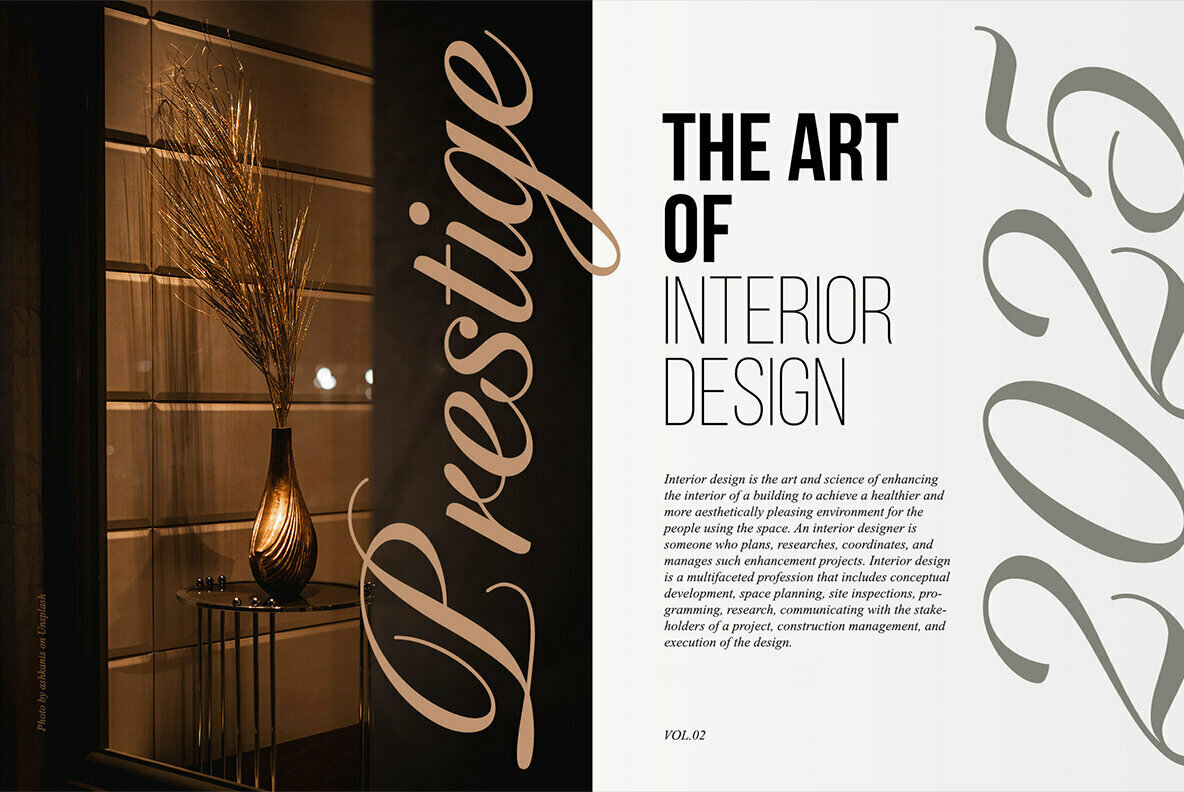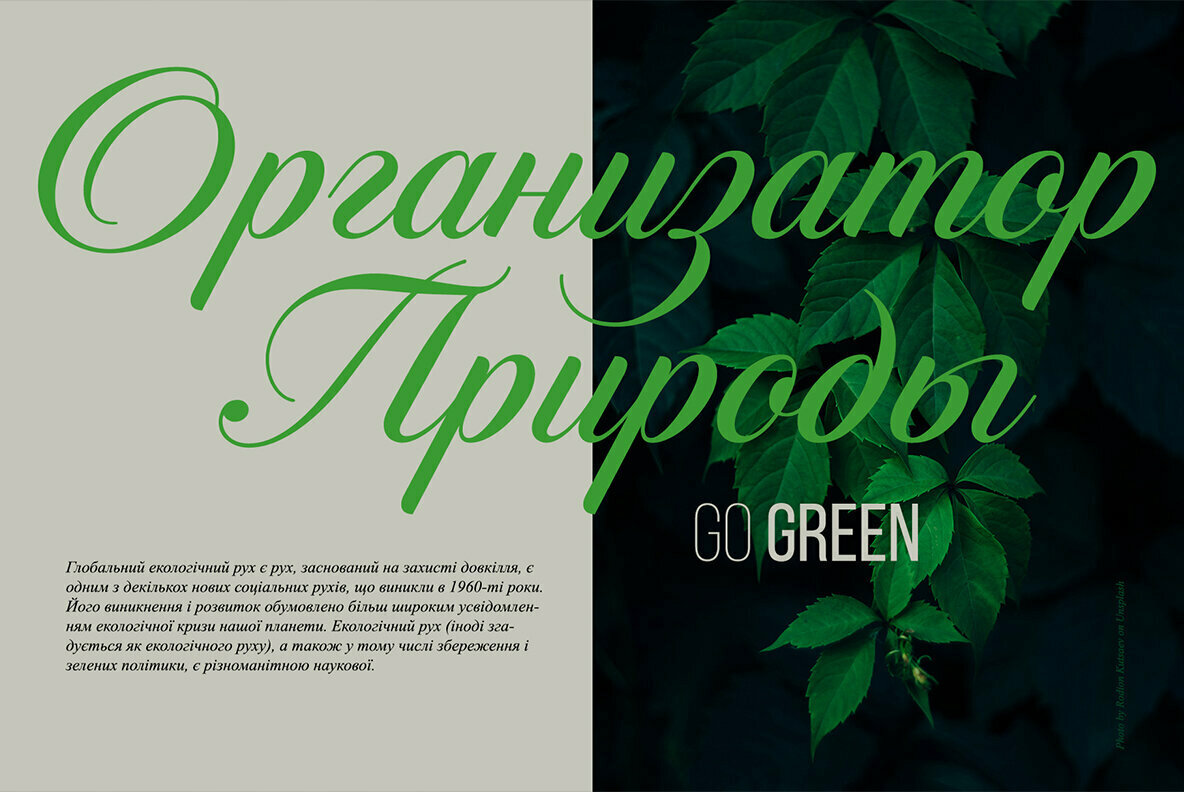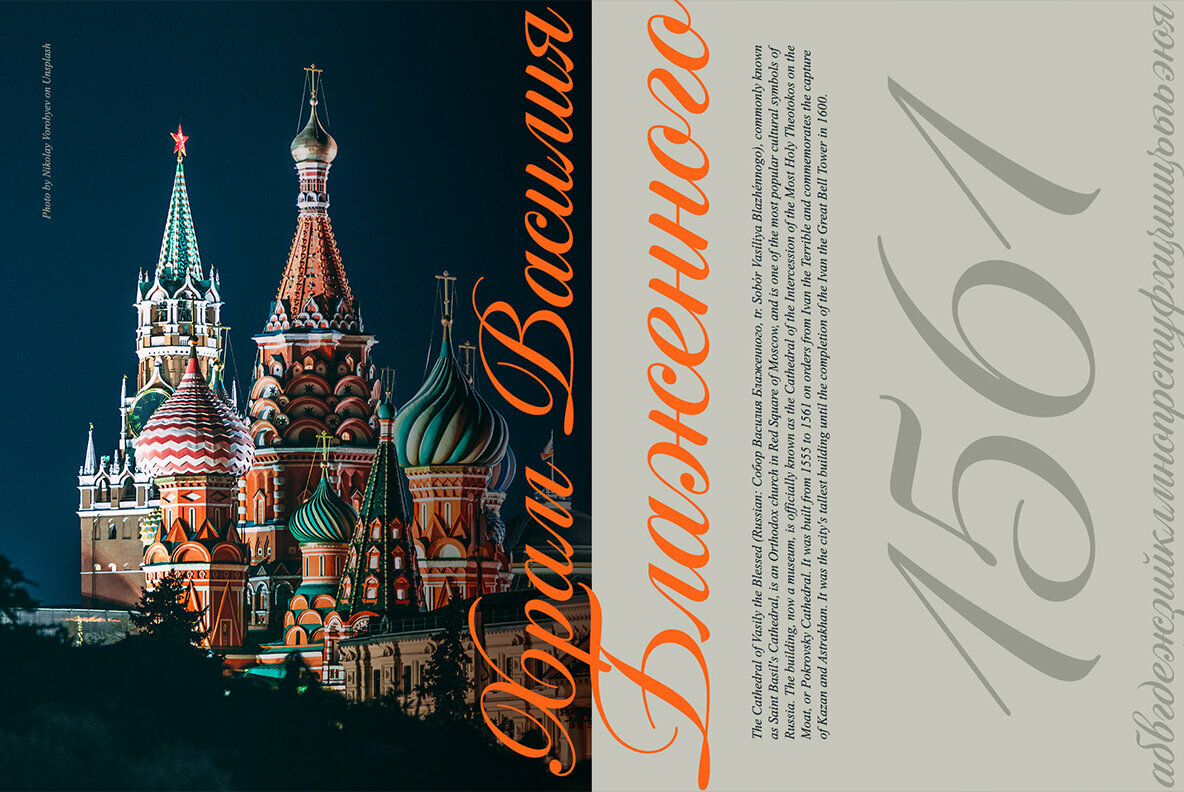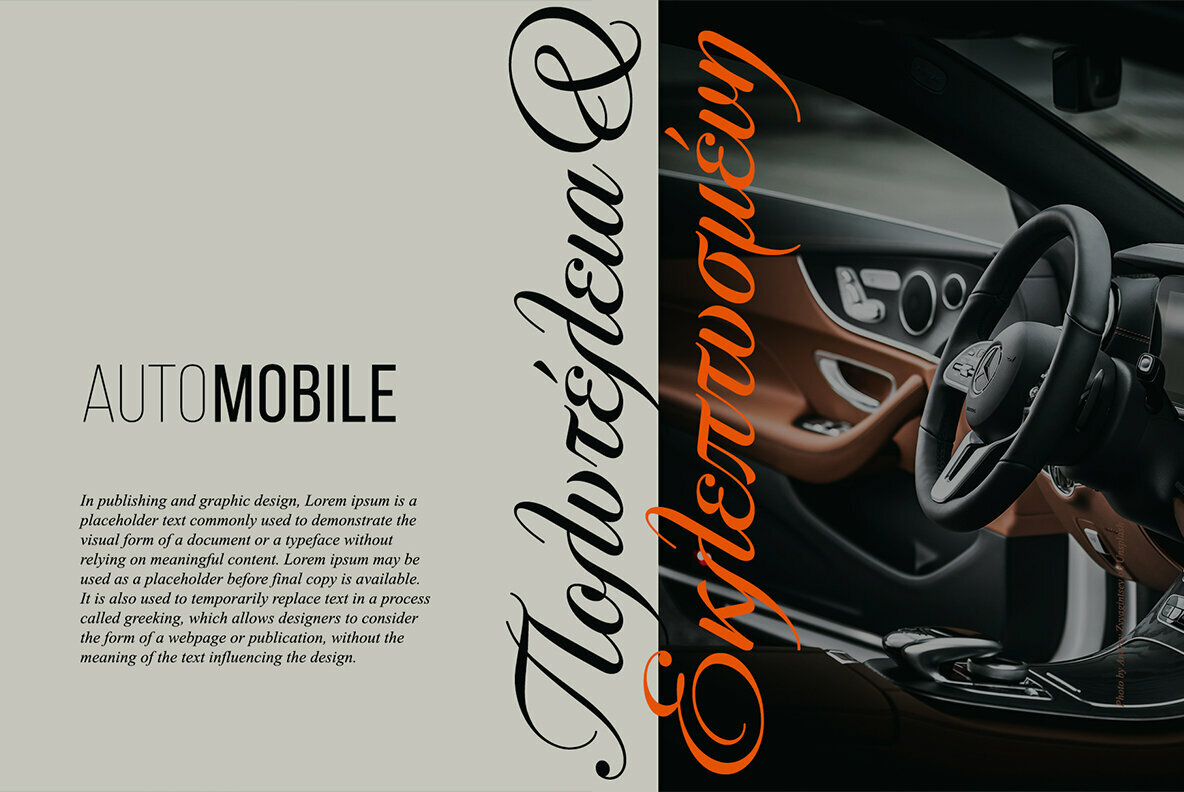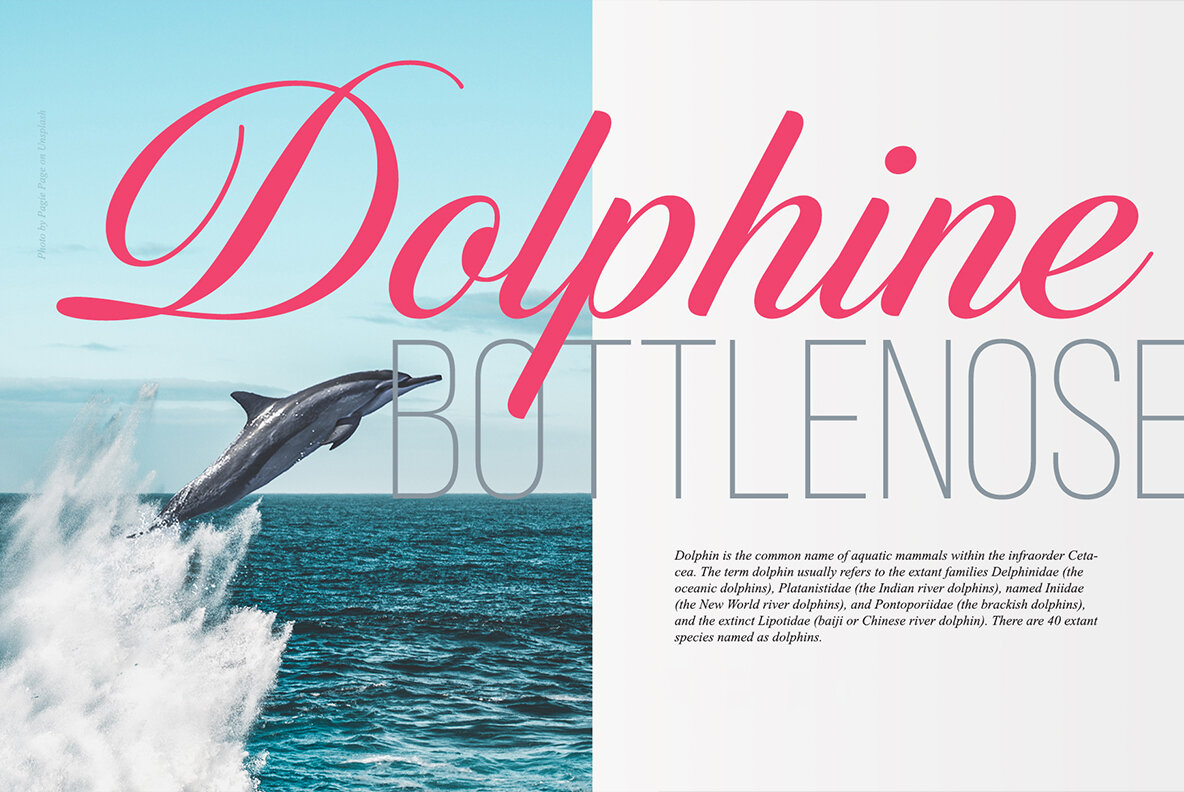
Candlescript Neue Basic 1
Candlescript neue basic is 2nd generation of the candlescript font. It was redesigning with all-new glyphs, designed by m fairuzulhaq (semarang-indonesia). inspired by the classic copperplate calligraphy and combined into modern lining with very precision and high quality in details, more beauty, smooth and flow, perfect for monitor display or printed in small to extra large sizes.
Candlescript neue basic have +1500 standard glyphs including one style for uppercaps, smallcaps, numerals (superior & inferior), punctuations, currency and symbols, diacritical marks, including script for cyrillic, greek, and latin (support +115 langauges) with unicode maps.